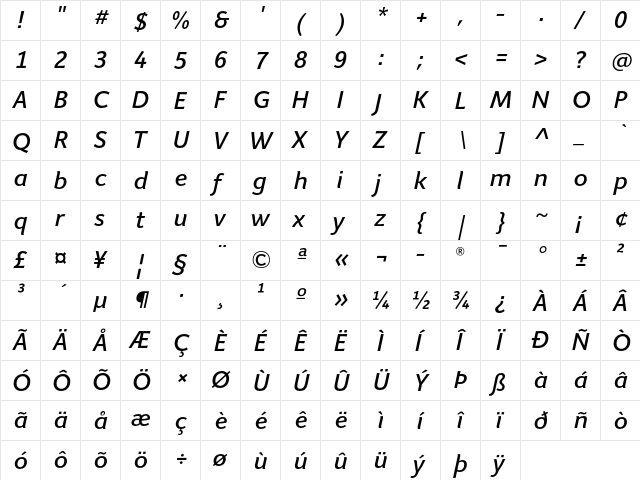
Giacomo MD Medium Italic
| Designer | James Montalbano |
Design Context for Giacomo MD Typeface
Giacomo MD is a composed and adaptable typeface that performs quietly and consistently across a wide range of design contexts. The slanted form adds forward momentum and visual energy.
Pro Tip: Use Giacomo MD for emphasis, pull quotes, and subheadings where its slanted energy can add rhythm to the layout.